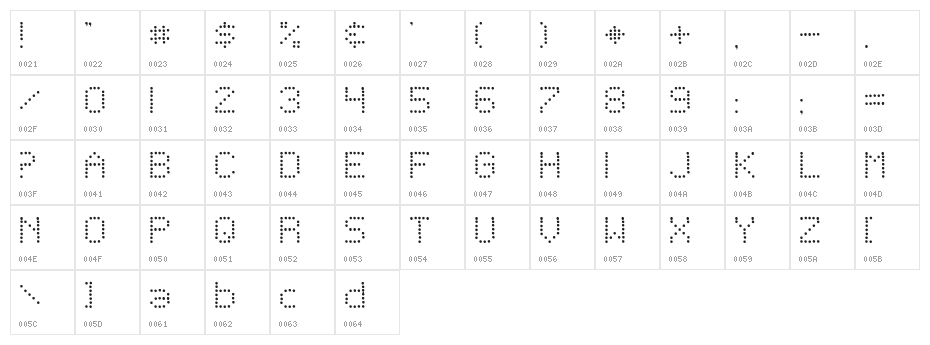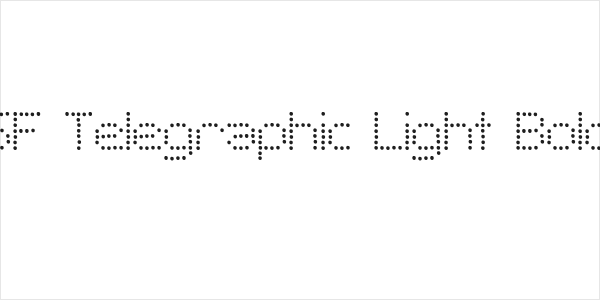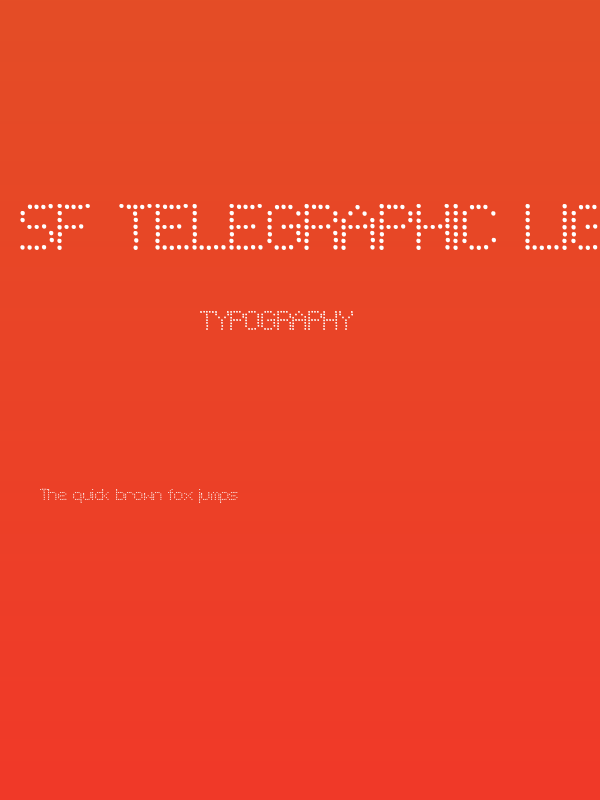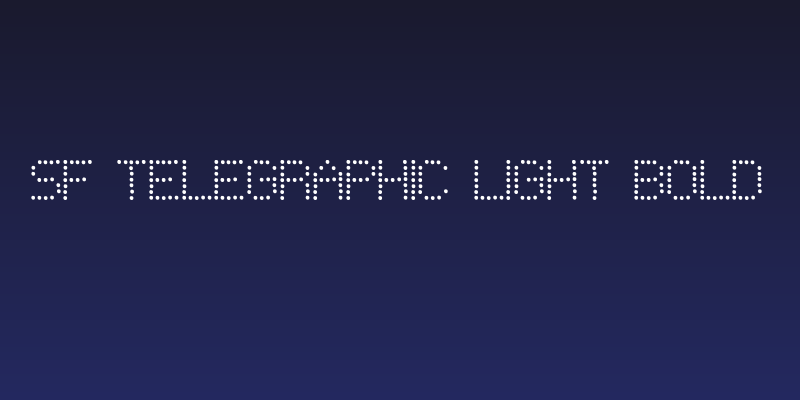
SF Telegraphic Light Bold Font
SF Telegraphic Light Bold Description
This font features a unique dotted design, where each character is composed entirely of small, evenly spaced dots. The geometric arrangement of the dots forms clear and legible letters and numbers, giving it a digital or electronic feel. The uppercase and lowercase letters maintain consistent proportions, while the numerals and special characters follow the same dotted pattern. This style is reminiscent of LED displays or digital readouts, making it stand out with its modern and technological appearance.
| Use Case | Logos, Headlines, Digital displays |
| Proposed Projects | Ideal for digital-themed projects, tech branding, electronic displays, and futuristic designs. |